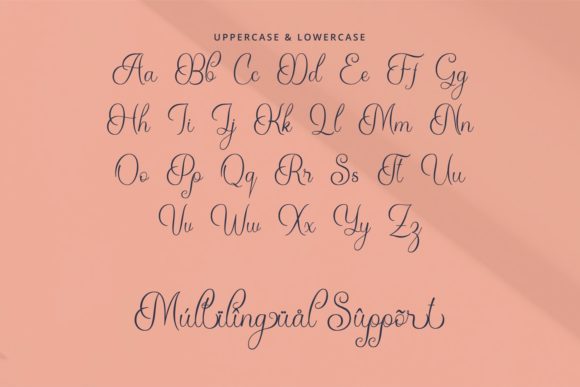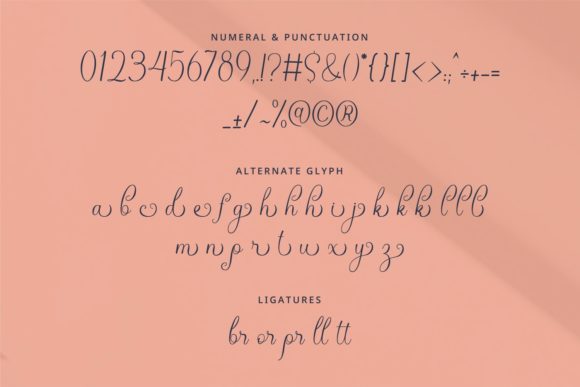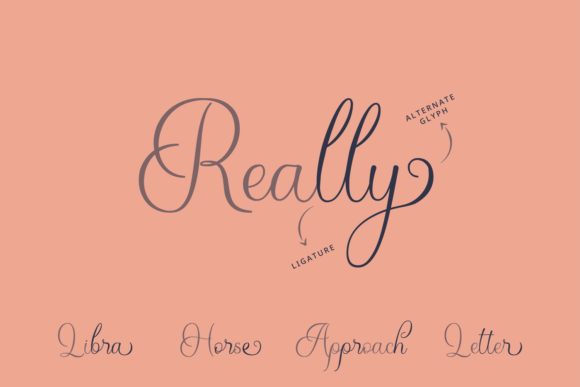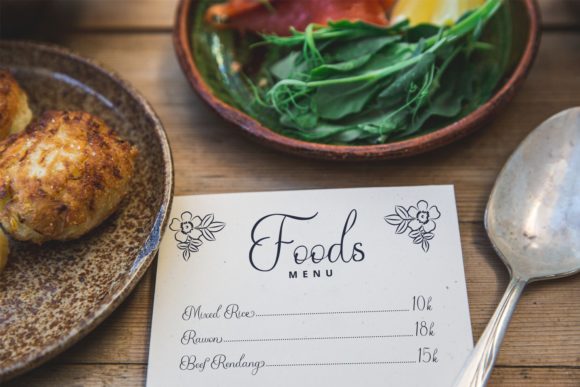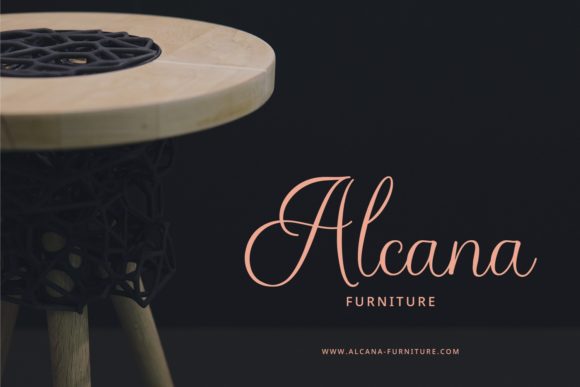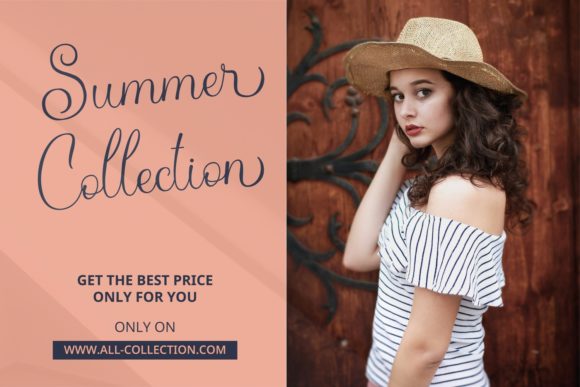
Discover the Elegance of Balania Font: Elevate Your Designs with Delicate Flair
In the world of typography, the right font can make all the difference in transforming a design from ordinary to extraordinary. For designers and crafters seeking a touch of elegance and sophistication, the Balania font is an exquisite choice. This delicate, elegant, and flowing handwritten font is designed to bring a sense of refinement and poise to any project. In this article, we’ll explore the beauty of Balania font, its characteristics, and how it can be the perfect addition to your creative arsenal.
The Beauty of Balania Font
Balania font is a masterpiece of typographic design, characterized by its delicate and flowing lines. Each character is meticulously crafted to exude elegance and refinement, making it an ideal choice for designers who aim to create sophisticated and visually appealing designs. The font’s well-balanced characters ensure that it can be paired with a wide range of design styles, from minimalist to elaborate, without overpowering them.
One of the standout features of Balania font is its versatility. Whether you’re working on a branding project, a wedding invitation, a packaging design, or a digital platform, this font can adapt seamlessly to various design contexts. Its flowing script and delicate flair add a touch of luxury and sophistication, making any design stand out.
Key Features of Balania Font
- Delicate and Elegant: Balania font boasts a delicate and elegant appearance, perfect for designs that require a touch of sophistication.
- Flowing Handwritten Style: The font’s flowing handwritten style gives it a personal and unique feel, making it ideal for projects that aim to convey warmth and personality.
- Well-Balanced Characters: Each character in the Balania font is carefully designed to be well-balanced, ensuring that the font looks great in various design contexts.
- Versatile: Balania font can be used in a wide range of design projects, from digital platforms to print materials.
How to Use Balania Font in Your Designs
Incorporating Balania font into your designs is straightforward, and its versatility makes it suitable for various applications. Here are some ideas on how to make the most of this beautiful font:
- Branding and Logotypes: Use Balania font to create elegant and memorable brand identities that stand out.
- Wedding and Event Invitations: Add a touch of sophistication and romance to your wedding or event invitations with Balania font.
- Packaging Design: Elevate your packaging designs with the luxurious feel of Balania font, perfect for high-end products.
- Digital Platforms: Use Balania font in your website designs, social media graphics, or mobile app interfaces to give them a refined and elegant look.
Tips for Pairing Balania Font with Other Design Elements
To make the most of Balania font, consider the following tips when pairing it with other design elements:
- Contrast with Bold Fonts: Pair Balania font with bold, sans-serif fonts to create visual interest and hierarchy in your designs.
- Complement with Simple Imagery: Balance the elegance of Balania font with simple, yet impactful imagery that doesn’t overpower the text.
- Use White Space Effectively: Ensure that your design has sufficient white space to let Balania font breathe and showcase its delicate beauty.
Balania font is a beautiful addition to any designer’s toolkit, offering a unique blend of elegance, sophistication, and versatility. Its delicate and flowing handwritten style makes it perfect for a wide range of design projects, from branding and packaging to digital platforms and event invitations. By incorporating Balania font into your designs, you can elevate your work and create visually stunning pieces that leave a lasting impression. So, why wait? Discover the beauty of Balania font today and watch your designs come alive!